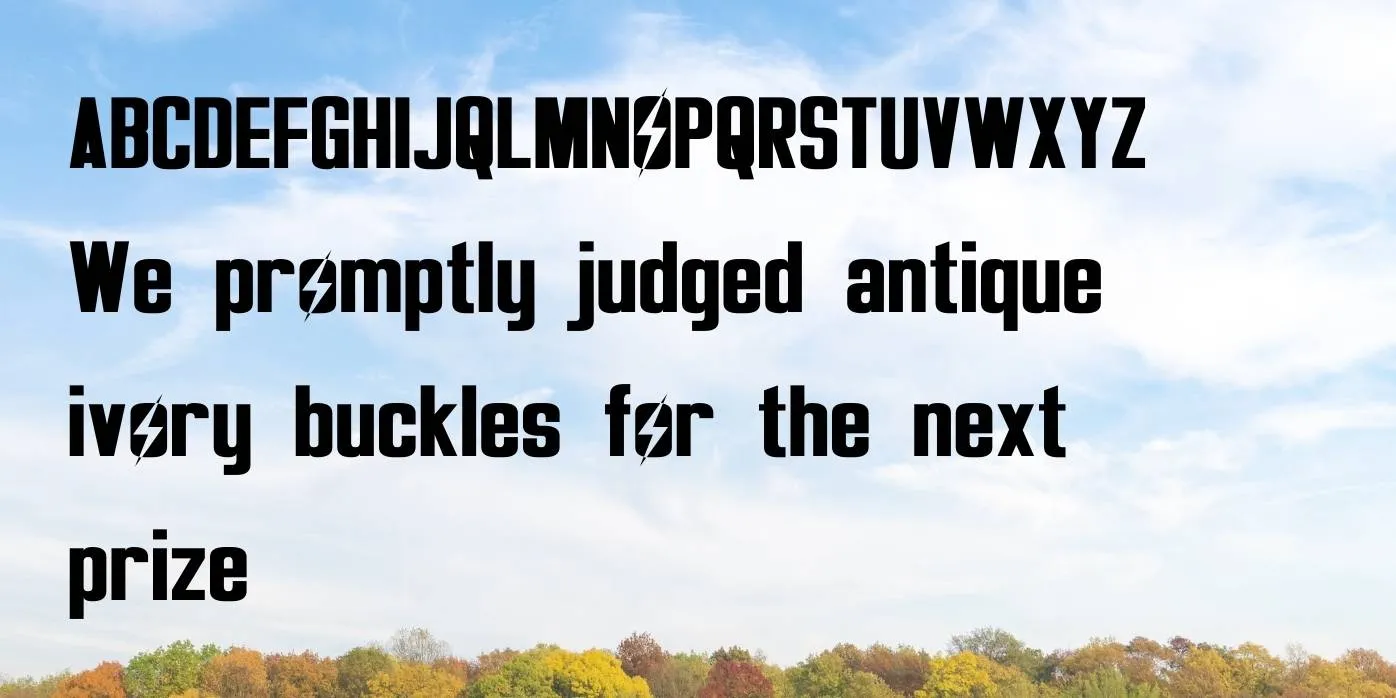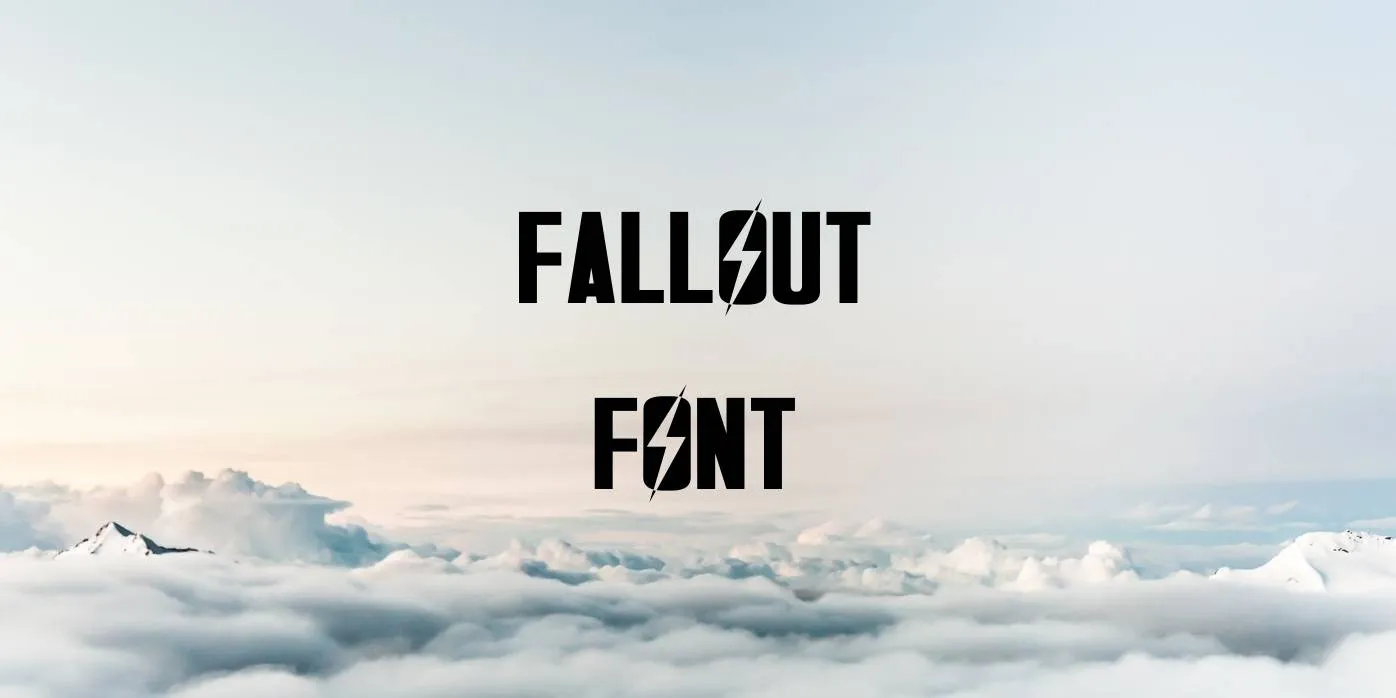
Fallout Font
Introducing the very stunning and famous typeface that is Fallout font. This font is taken from a game called Fallout. It has OTF features and the designer of this font is Pixel Sagas. The font family is free for personal use only.
It comes in 4 weights includes Regular, Bold, Italic, and Bold Italic as well. All the weights have the Opentype feature and can manage all the problems. The font’s real name is Overseer Which later became famous because of the game “Fallout”. The font has the ability to support many languages and is free for personal use.
The characters in this font look great and provide a very stylish result. You can also use it in your stylish designs and projects. It is the simple bold typeface that is fulfilled with all the designers need.